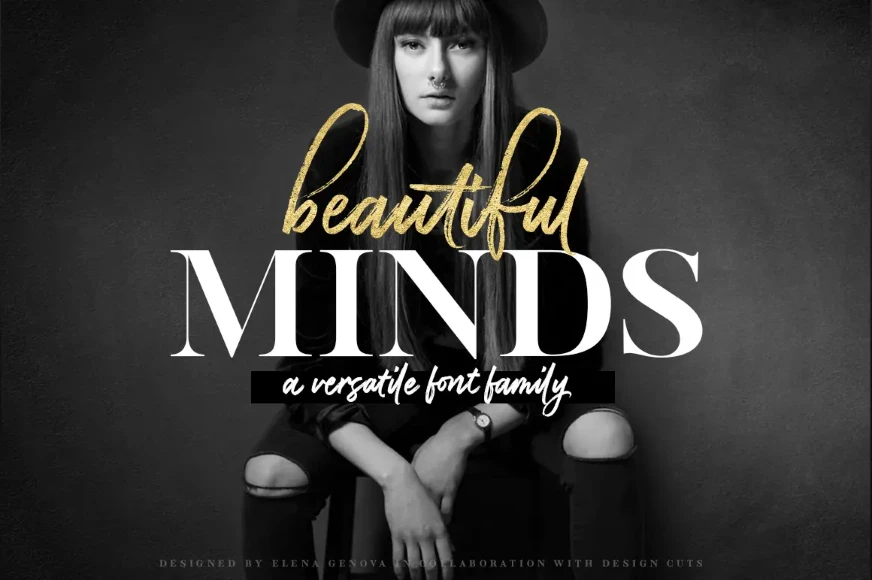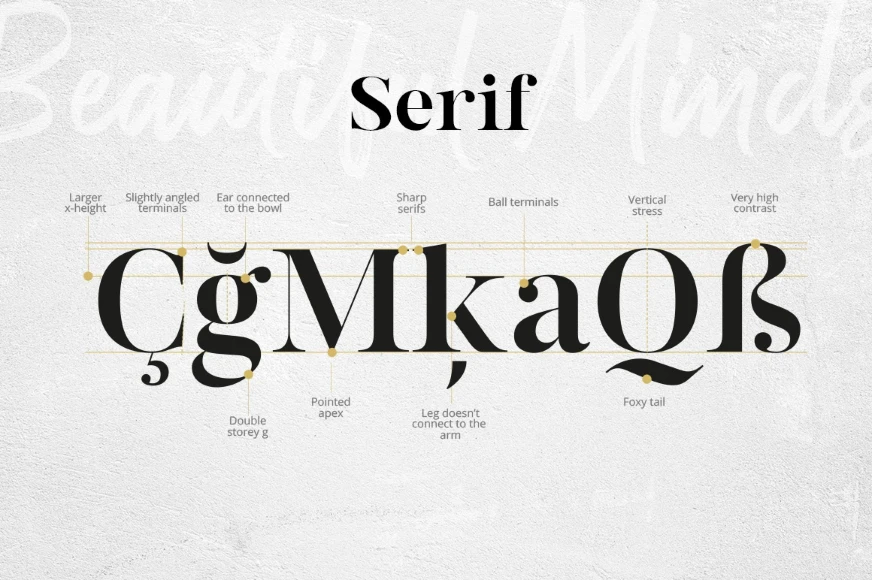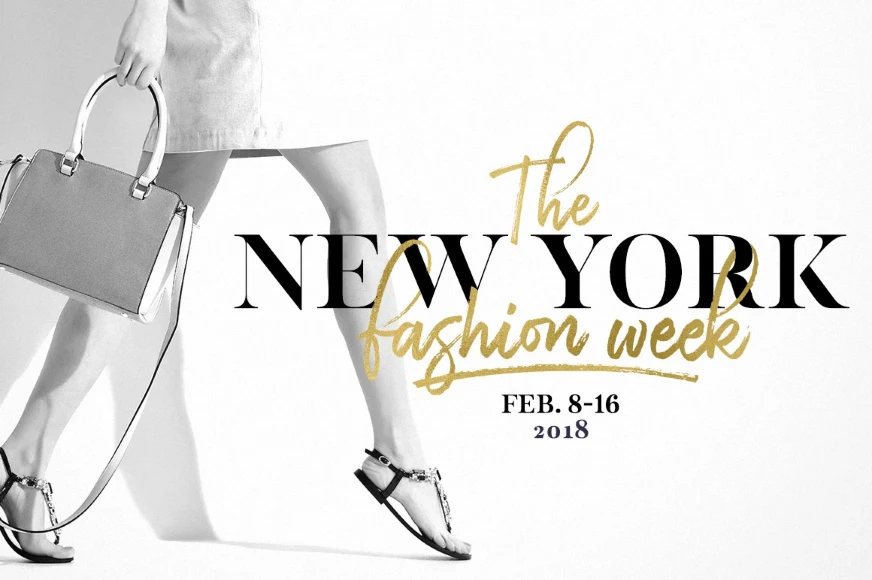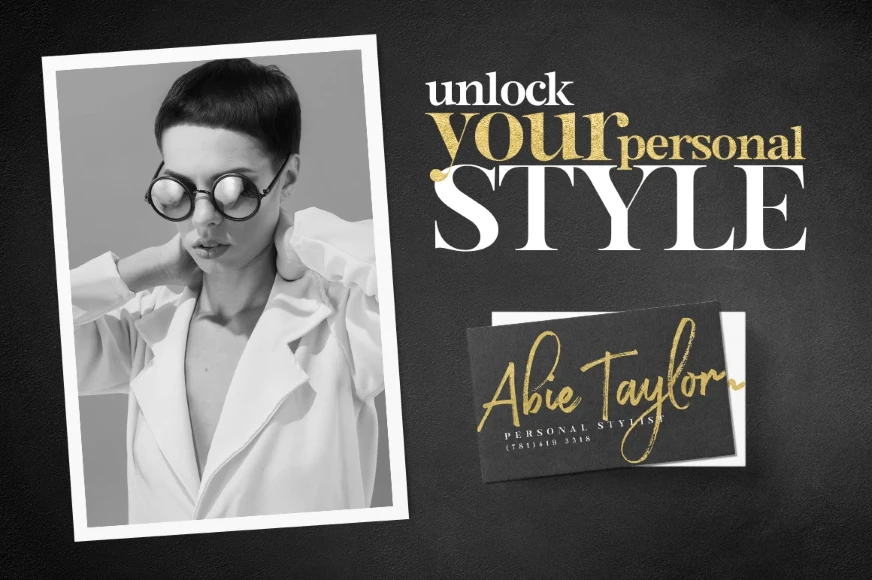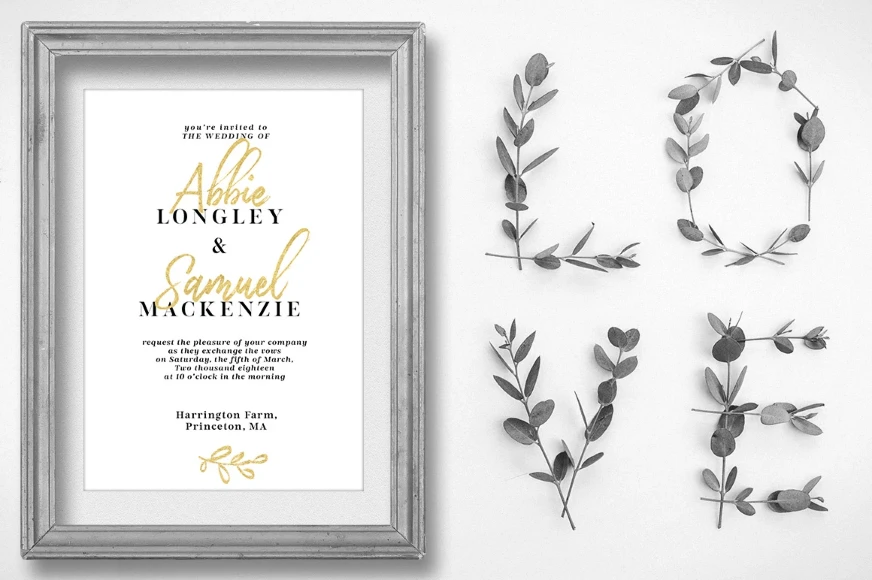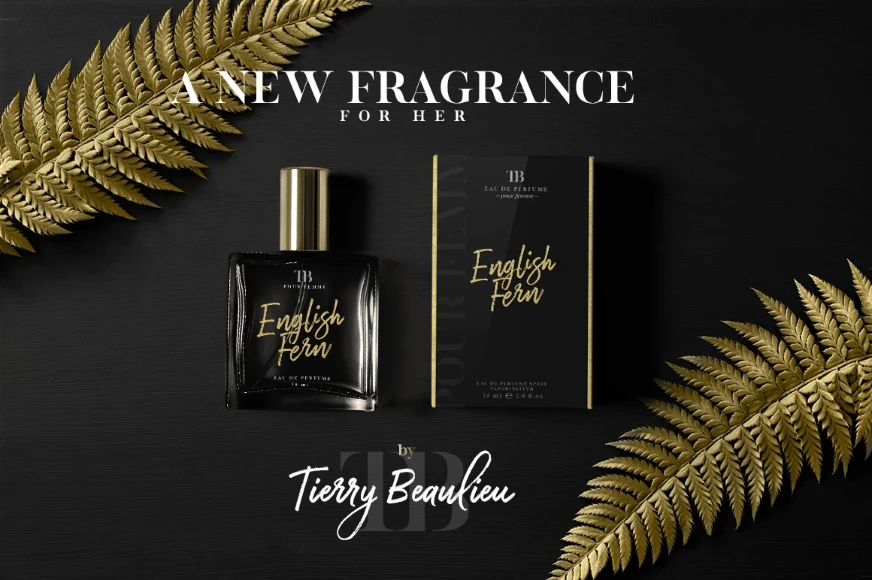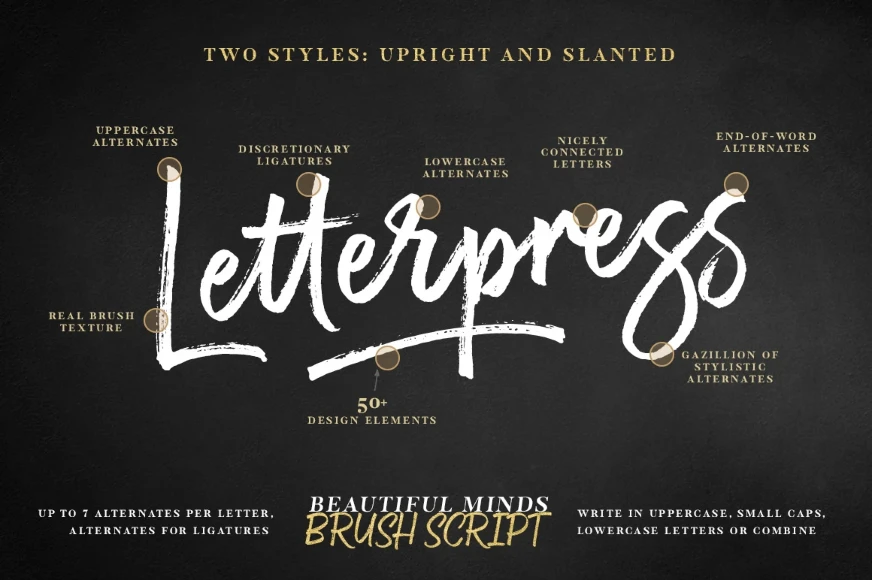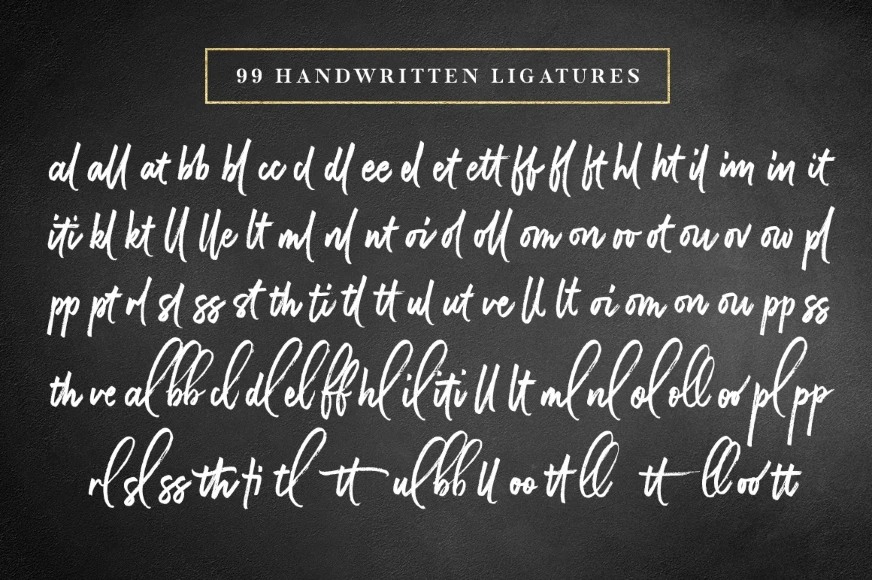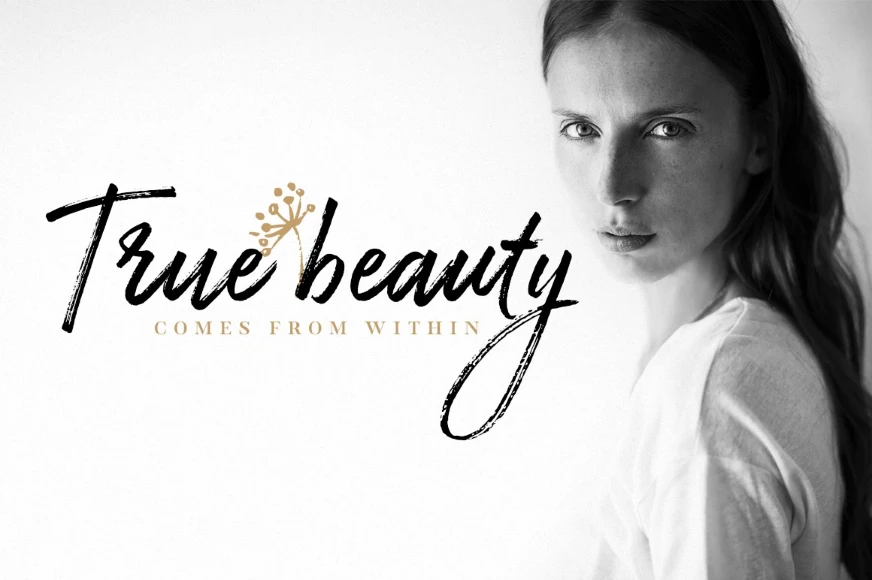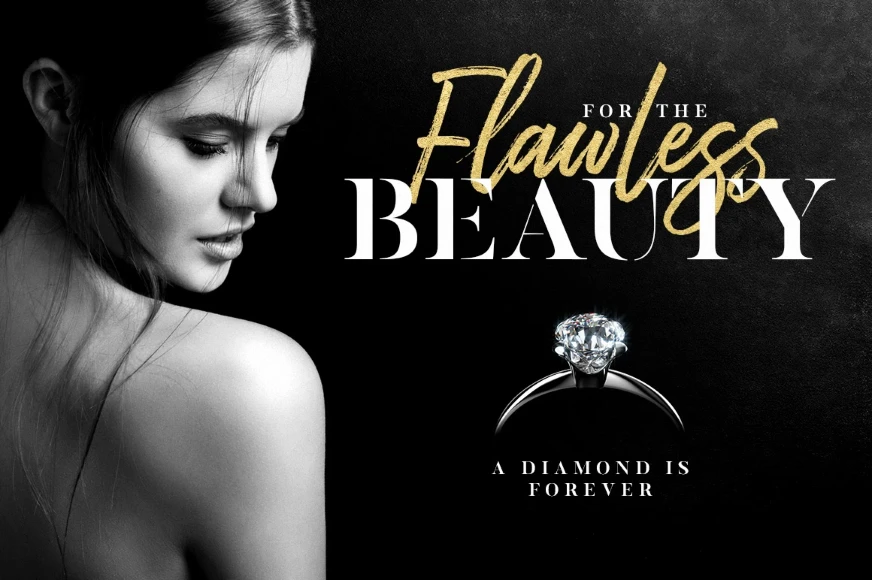
Beautiful Minds Script
By Elena Genova
Beautiful Minds Script Brush
Beautiful Minds Script Pen
Beautiful Minds exists between Prêt-à-porter and Haute Couture. The satisfying immediacy of off-the-rack and the detailed elegance of tailored. An unbracketed high-contrast serif with an italic and a casual script in both brush and pen form complement each other in the best possible way. As a family of 5 trendy fonts — Regular, Italic, Stencil, Script Brush, and Script Pen — they combine to add unforgettable style to your designs and enhance any project requiring elegance and class.